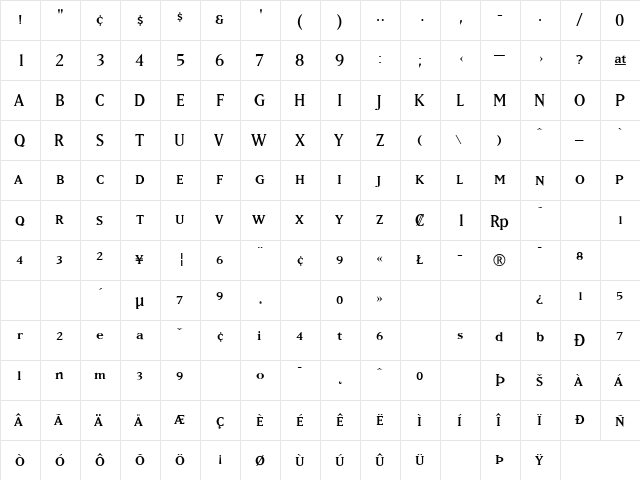
MatrixRegularSmallCaps Regular Font Preview
MatrixRegularSmallCaps Regular
Design Context for MatrixRegularSmallCaps Typeface
MatrixRegularSmallCaps offers clean, dependable letterforms without strong stylistic allegiance, making it a practical choice for designers who need flexibility.